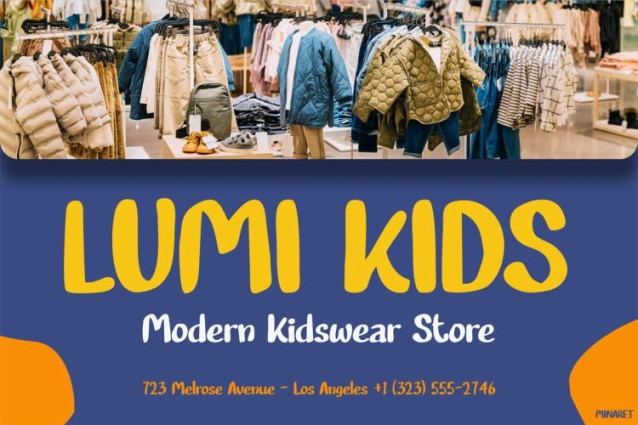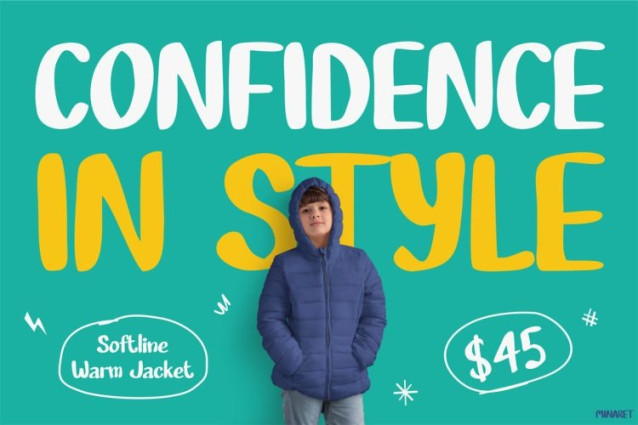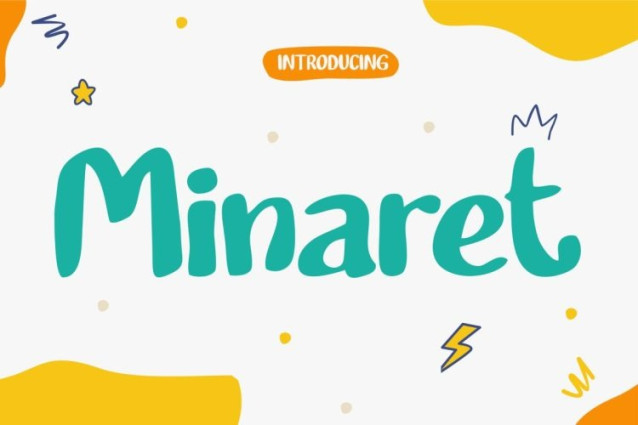
Minaret Font
Minaret Font features bold, bouncy letterforms inspired by childhood creativity. In addition, every character feels lively and expressive. The font includes uppercase and lowercase letters, numbers, and basic punctuation. Because of this, it supports many creative layouts. Furthermore, the spacing is carefully adjusted for clarity. As a result, readability stays strong in print and digital use. Meanwhile, the playful style pairs perfectly with bright colors. It also works well with illustrations and photos. Consequently, designs feel energetic and inviting.
Perfect For
Kids Font Minaret is ideal for children’s clothing brands and toy packaging. Moreover, it fits kids fashion stores and playful retail signage. Schools and kindergartens can also benefit from its friendly tone. In addition, learning centers can use it for posters and worksheets. Designers may apply it to Instagram posts and digital ads. Likewise, it suits storybooks, birthday cards, and event promotions. Therefore, parents, teachers, and small business owners will find it useful. Ultimately, it helps designs feel safe, joyful, and approachable.
Why You Should Choose It
In conclusion, Kids Font Minaret is more than a decorative font. Instead, it is a visual tool for communication and emotion. By using it, designs become more engaging and memorable. As a result, brands connect better with children and families. Finally, if you want your visuals to feel happy and playful, this font is the right choice.